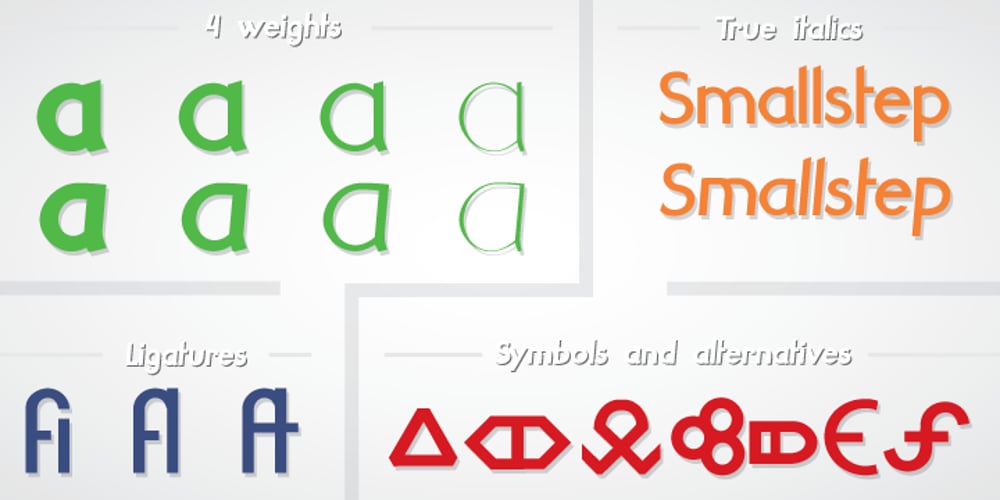
Smallstep Pro Font Family was designed by Boris Nikolaev Marinov and published by Evolutionfonts. Smallstep Pro contains 8 styles and family package options. Smallstep – One geometric sans serif with a free spirit. If we presume that geometric typefaces play with the idea of what typography would look like in the future when all unnecessary elements would disappear, than most of their designers seem to envision the future in a rather metropolisque kind of way. We love geometric faces, but the cold and heartless feelings that most of them leave is just not our cup of tea. That is why we are happy to bring some optimism in that genre with our new typeface. We called it Smallstep. Smallstep is a typeface that follows the traditions of classic geometric sans serifs like “Futura”, but is at the same time friendly and whimsical. We took the liberty to deviate from the standard sans serif glyphs while drawing some characters (such as ”a” and ”r” ), others (“w” “k”) are completely redesigned. Probably the biggest trademark of this typeface is the way vertical lines in most lower case characters are “cut” so they end in a 60 degree angle. Smallstep is over all a expressive face, which means it brings some emotions to your design and feelings in itself, and should be used accordingly. Other than that, it is suitable for both headline and body text, print and web. So what kind of name is “Smallstep”? We view the type design process as a form of evolution: There can be no typeface that differs drastically from the current standards, since its characters would be unrecognizable and thus unreadable. But at the same time there are hundreds of faces that differ a little, and still manage to make a difference by moving with small steps towards better and more refined looks. Smallstep consist of 4 weights, that cover all the features, that are expected of a modern Opentype face: kerning pairs, ligatures, true italics and alternative characters, plus a set of symbols, that will help you start off your designs more easily.